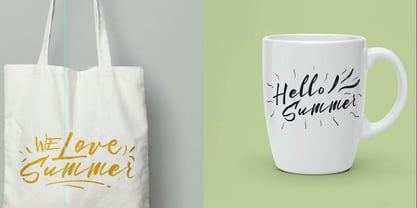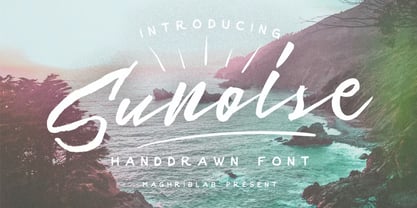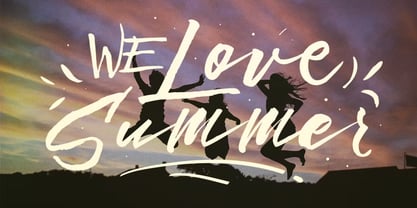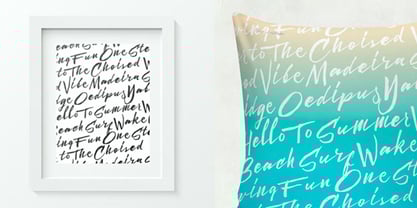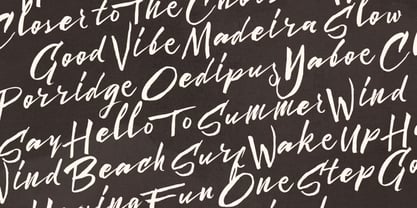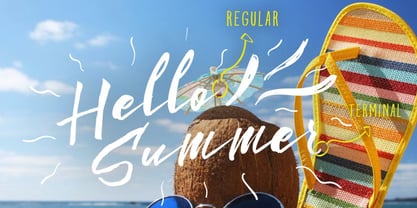
Sunoise
by Maghrib Type
The Sunoise Font Family was designed by Rizky Setyaludin and published by Maghrib Type. Sunoise contains 1 styles.
Sunrise – Handdrawn Script Font Sunrise is a handdrawn script font that captures the warmth of sunshine and the joy of celebration. With its natural brush strokes and flowing, organic lines, this font brings a personal and expressive touch to any design — from cozy Christmas greetings to vibrant summer posters. Inspired by handwritten brush lettering, Sunrise delivers both energy and softness, making it perfect for multiple seasons and occasions. Whether you’re designing holiday cards, summer quotes, travel posters, branding, or social media content, this font adds a lively, handcrafted spirit that feels both modern and timeless. Let Sunrise brighten your creative projects with the warmth of handwritten charm — all year long.
Designers: Rizky Setyaludin
Publisher: Maghrib Type
Foundry: Maghrib Type
Design Owner: Maghrib Type